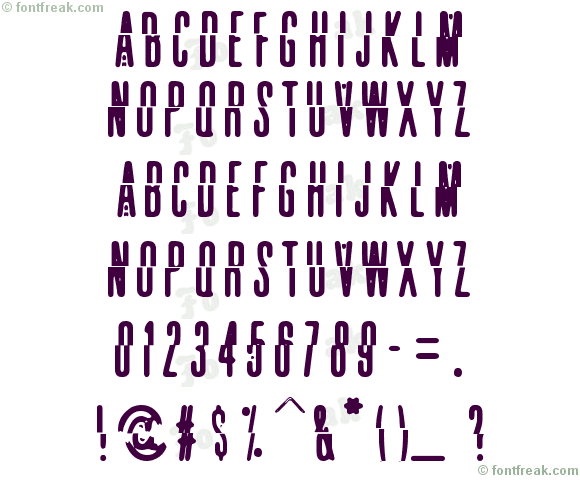
pacific break
About pacific break
The Pacific Break font by Woodcutter Manero is a striking display typeface that exudes a bold and adventurous spirit. With its unique geometric shapes and carefully crafted letterforms, this font stands out in any design context. The stroke weight is consistent, providing a sturdy presence, while the contrast between the thick and thin elements adds visual interest. The spacing is well-balanced, ensuring readability while maintaining an eye-catching appearance. The distinctive decorative elements resemble a wave-like flow, evoking a sense of movement that is reminiscent of coastal landscapes.
This font is ideal for a variety of creative applications. It excels in wedding invitations, where its bold character can convey a sense of celebration and joy. Additionally, it works beautifully for movie posters, where the adventurous theme can captivate the audience's attention. Restaurant menus can also benefit from the Pacific Break font, adding a touch of personality that reflects the culinary experience. Furthermore, this typeface is perfect for branding projects, particularly for businesses looking to establish a modern and dynamic identity.
The target audience for this font includes graphic designers, small business owners, and content creators who seek to make a memorable impact through their work. Whether used in print or digital media, the Pacific Break font offers versatility and flair, appealing to those who appreciate unique design choices.
What sets the Pacific Break font apart is its ability to blend boldness with elegance, making it suitable for both casual and formal contexts. Its free availability as a freeware license allows creatives to experiment without limitations, making the Pacific Break font free download a valuable resource for anyone looking to enhance their projects with a distinctive typeface.